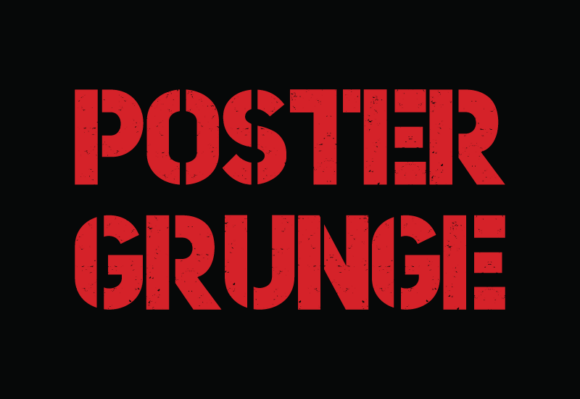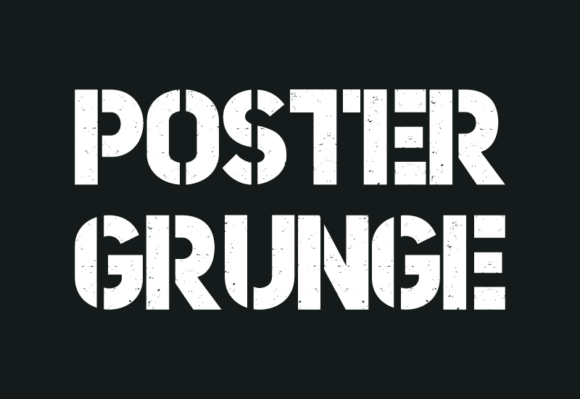
Introduction to Poster Grunge Font
Unveiling “Poster Grunge” – an audacious, distinctive sans-serif font oozing a grungy flair.
This textual sensation manifests a raw, edgy character that makes a potent statement With its tattered lines and ruggedly textured facade, Poster Grunge encapsulates a true spirit of grit and rebellion.
Key Features of Poster Grunge Font